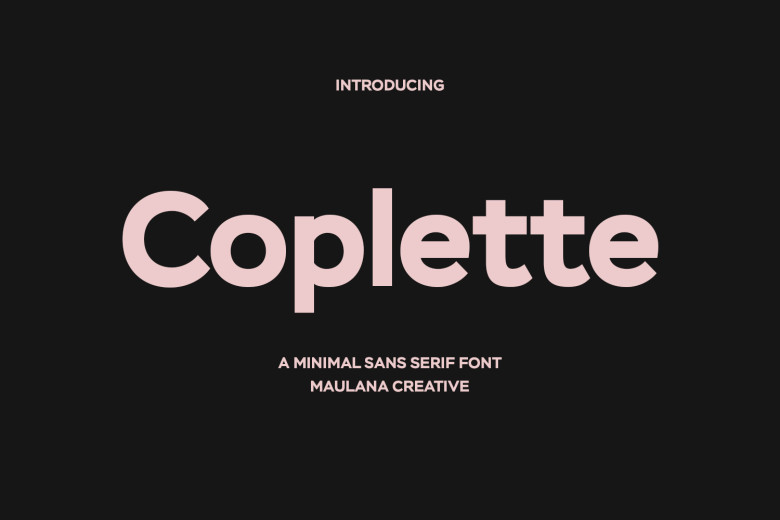
Coplette Font
Coplette is a minimal semi-geometric sans-serif font. This typeface is very suitable for logo designs, social media posts, movie titles, book titles, short text, even long text, and good for your secondary text with a sans or serif. Create beautiful work with Coplette font! This font is PUA encoded, which means you can access all of the glyphs and swashes easily!
Coplette Sans Serif Font